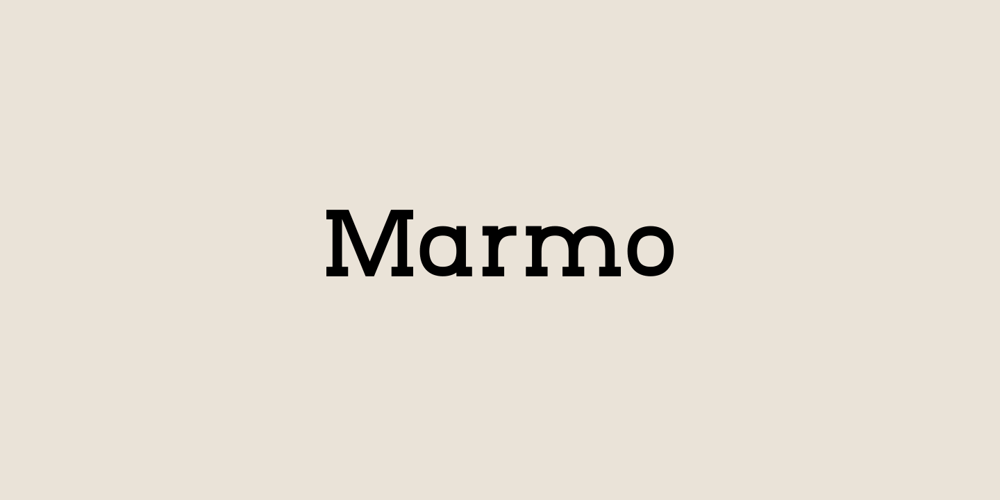
Marmo Font Family was designed by Stefano Giliberti and published by Stefano Giliberti. Marmo contains 10 styles and family package options. Marmo is a font family with sharp-edged and thick-bodied character. It supports 113 languages, features a total of 486 glyphs and includes an italicized version for each of the 5 weights.